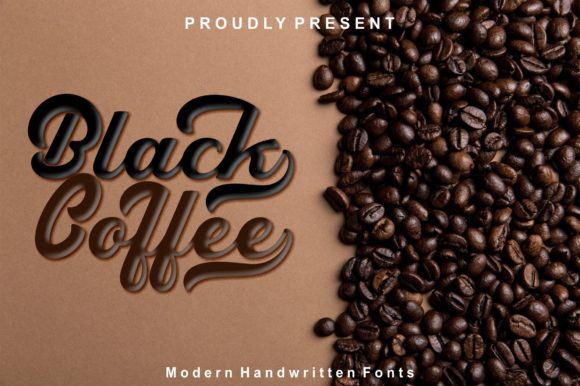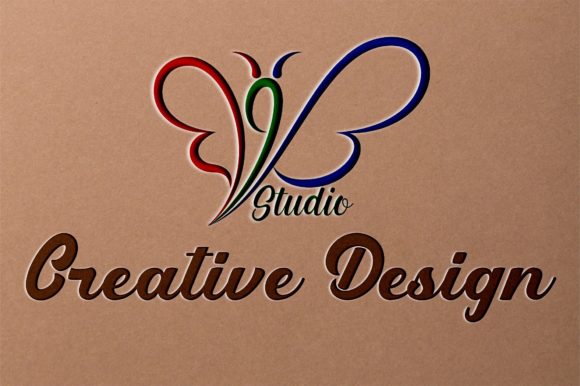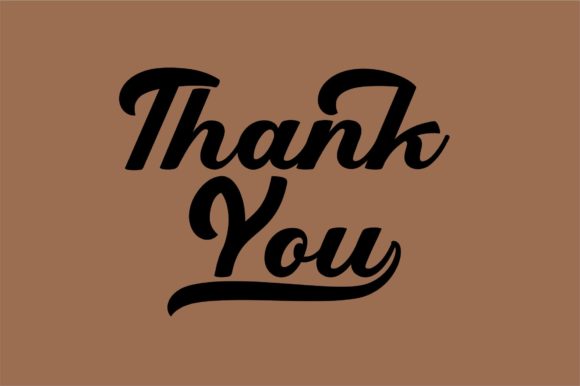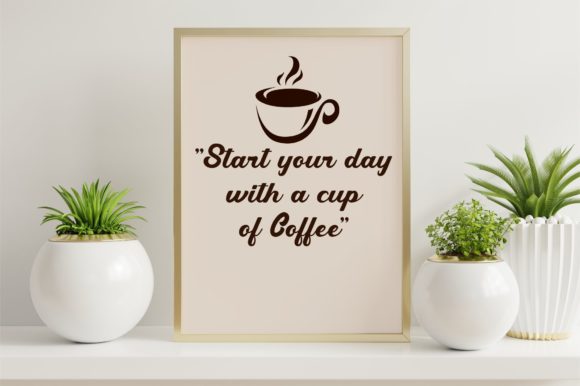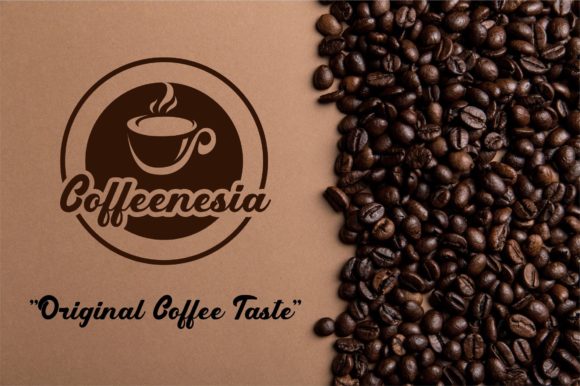
About Black Coffee Font
Black Coffee is a stylish and bold script font. It is PUA encoded which means you can access all of the glyphs and swashes with ease! Add it confidently to your projects, and you will love the results.